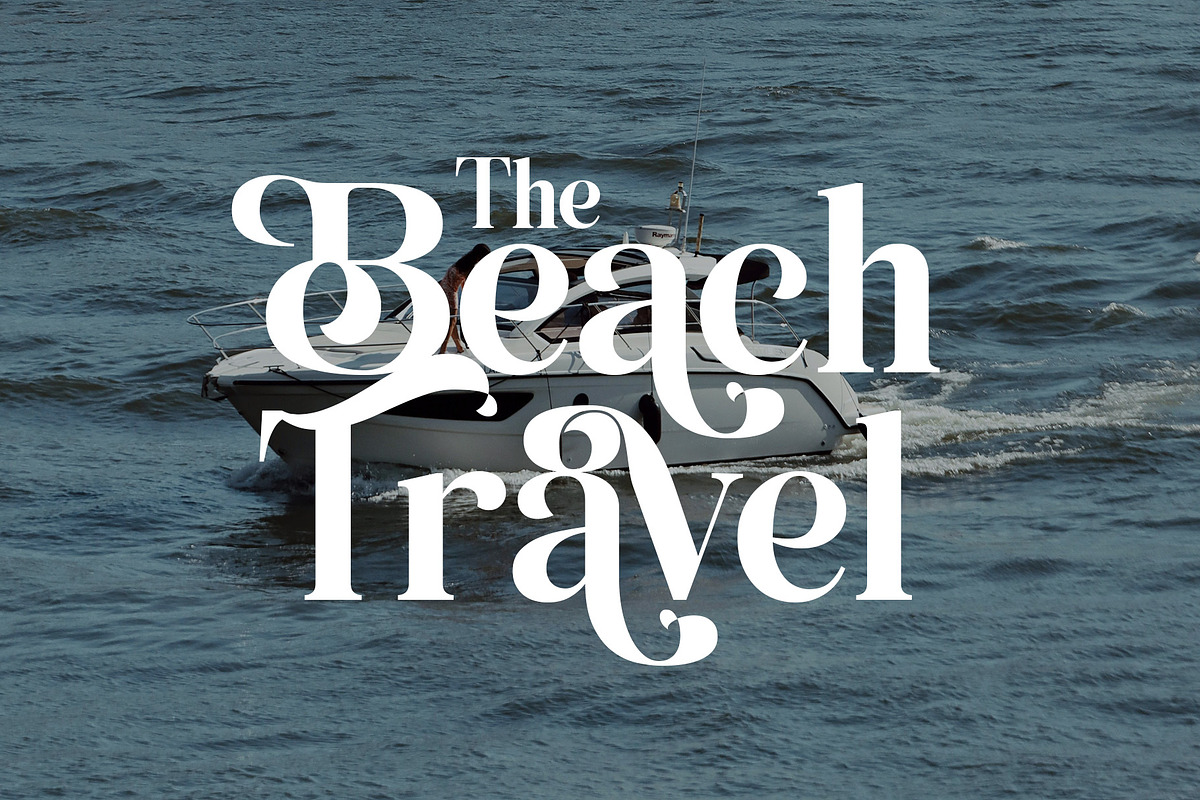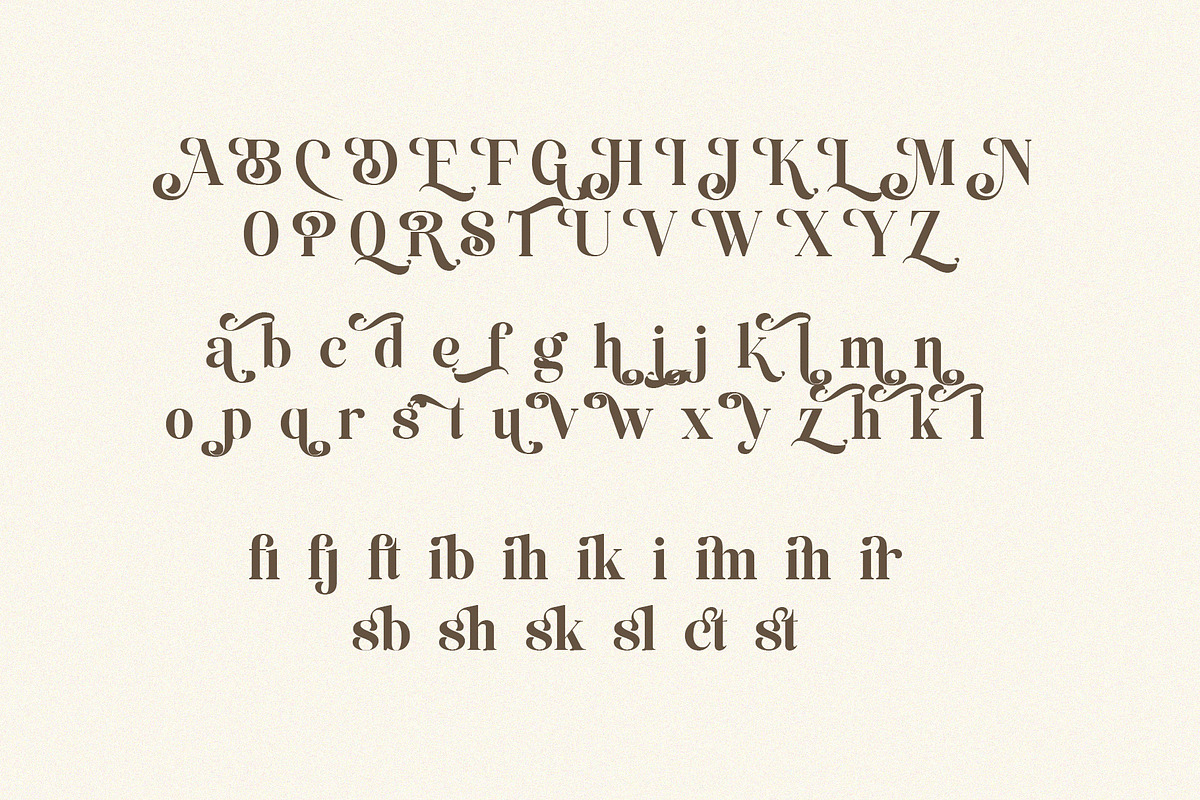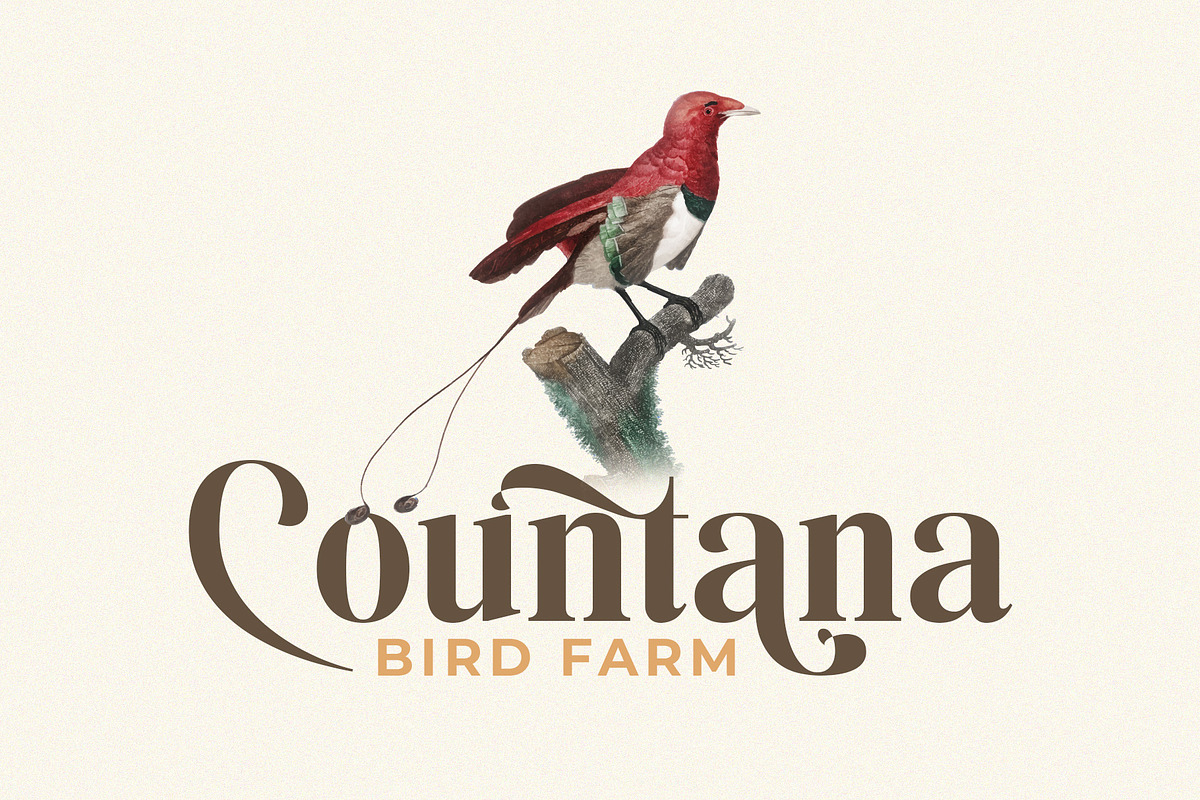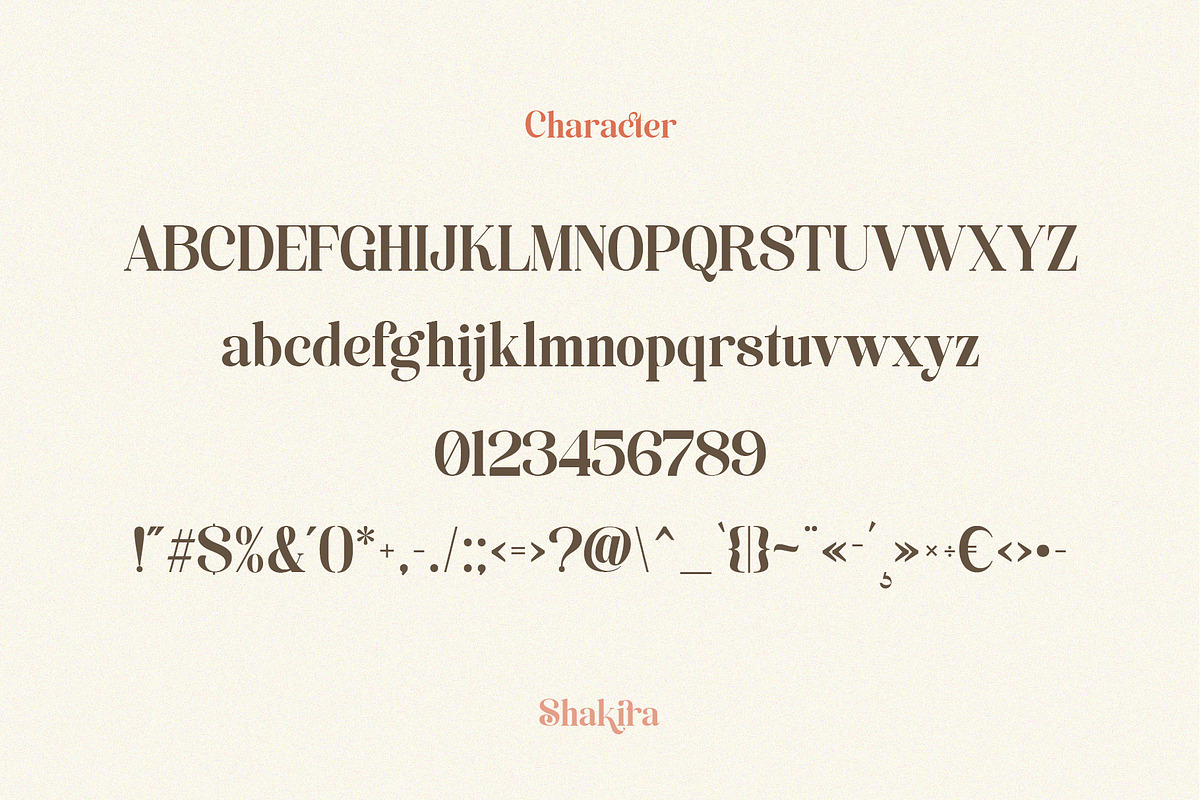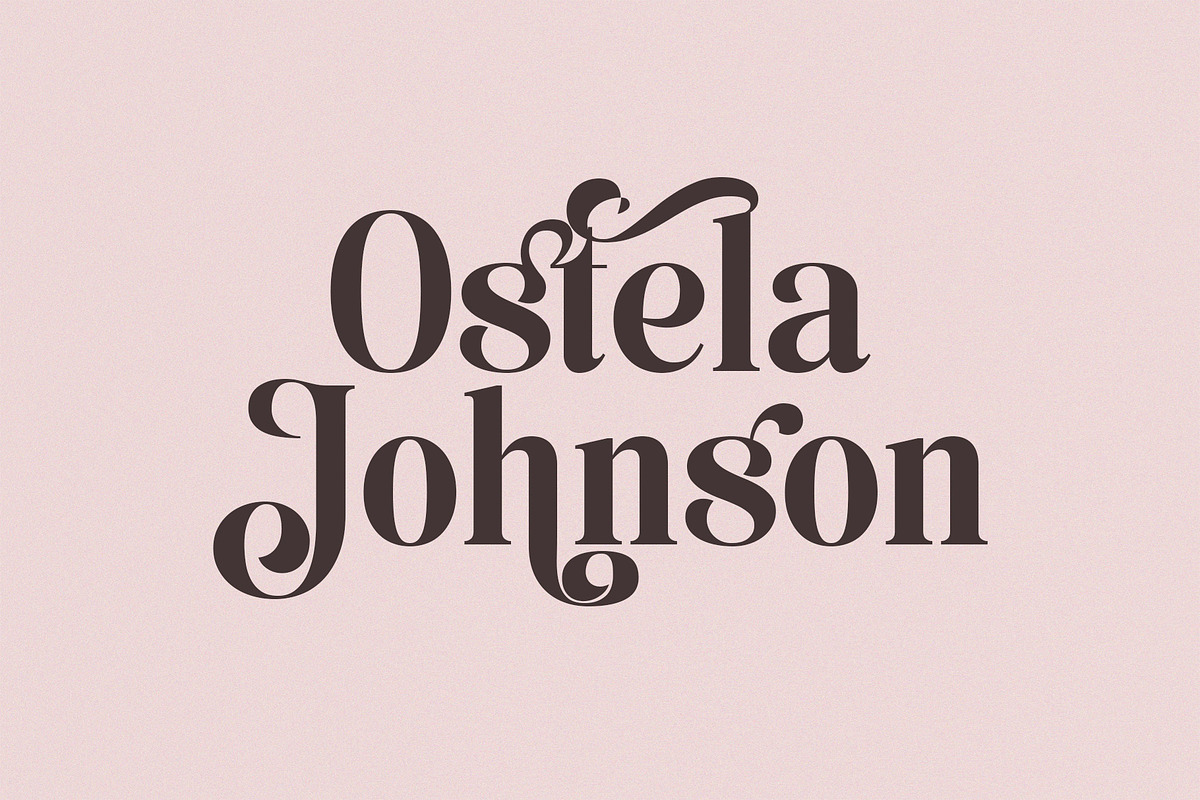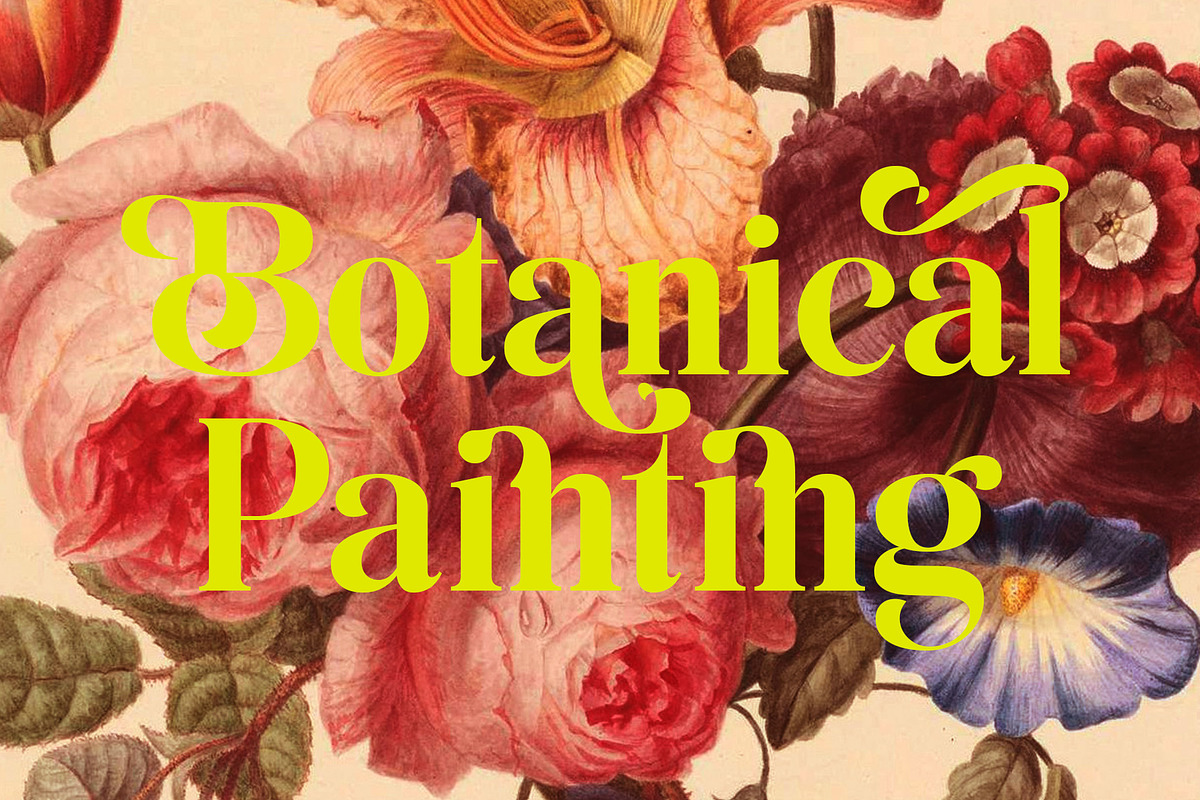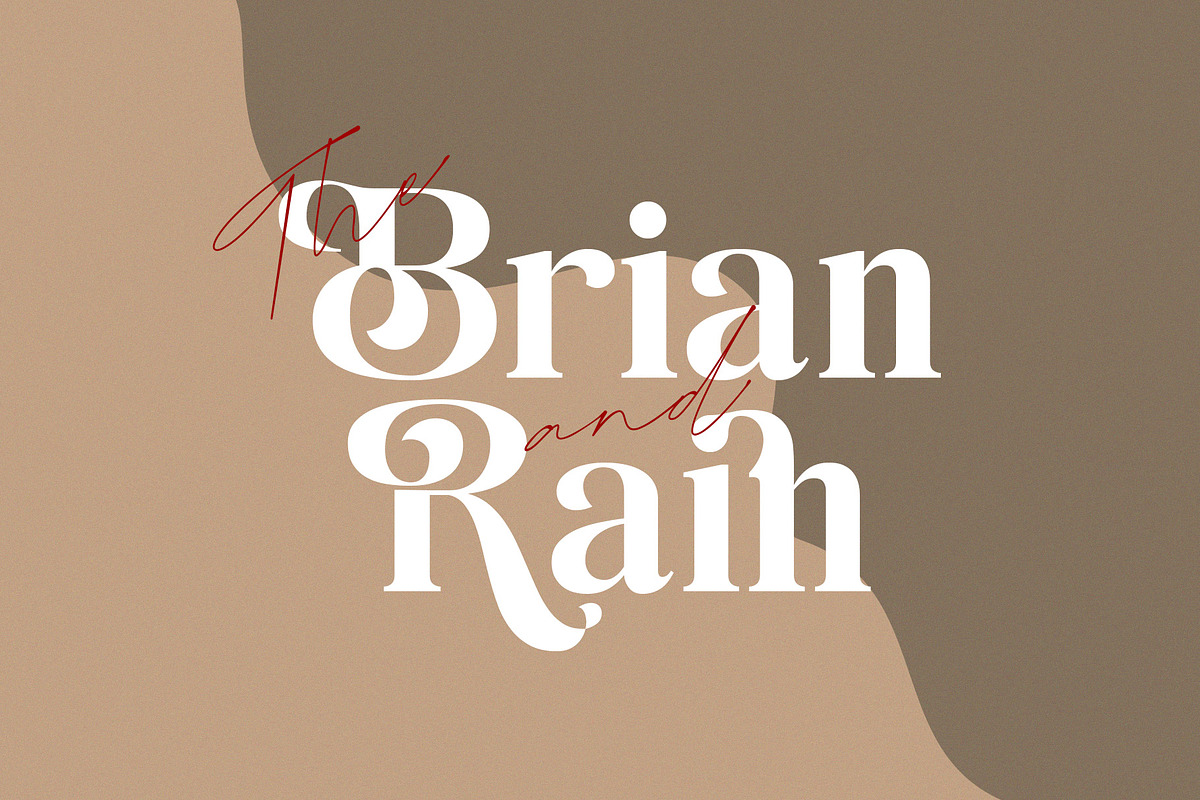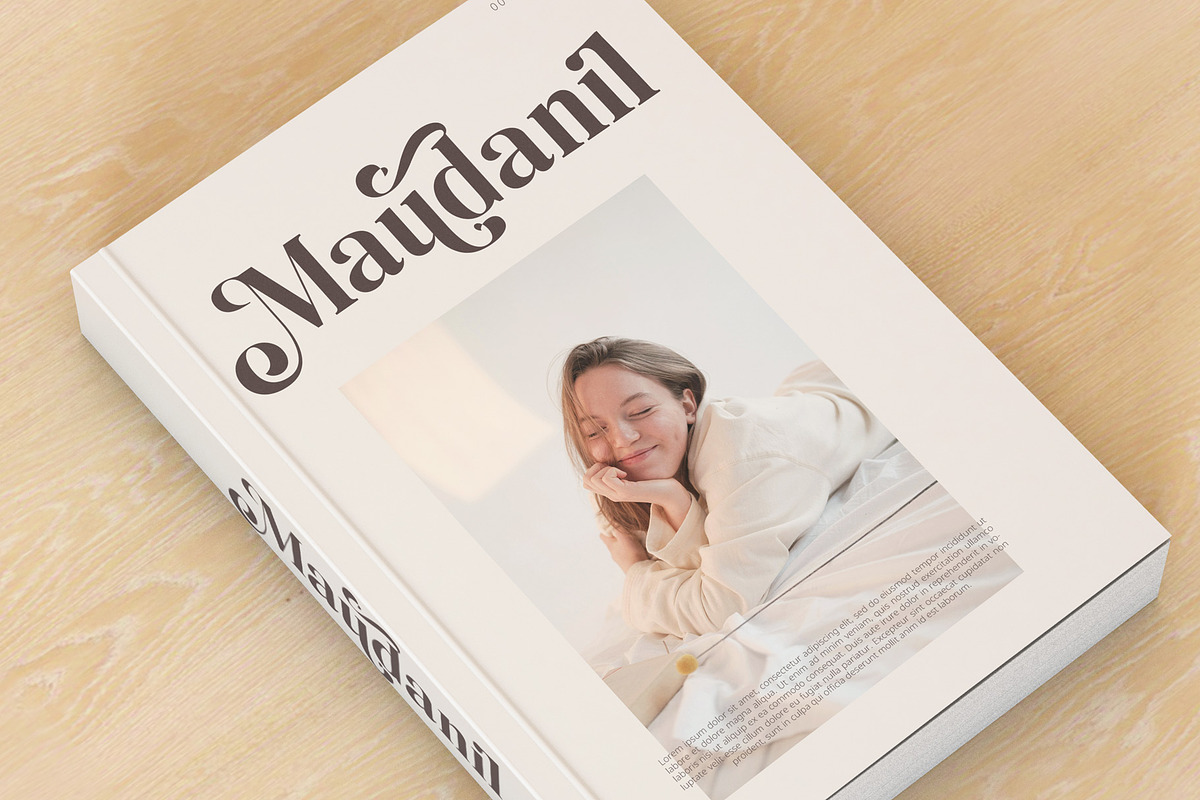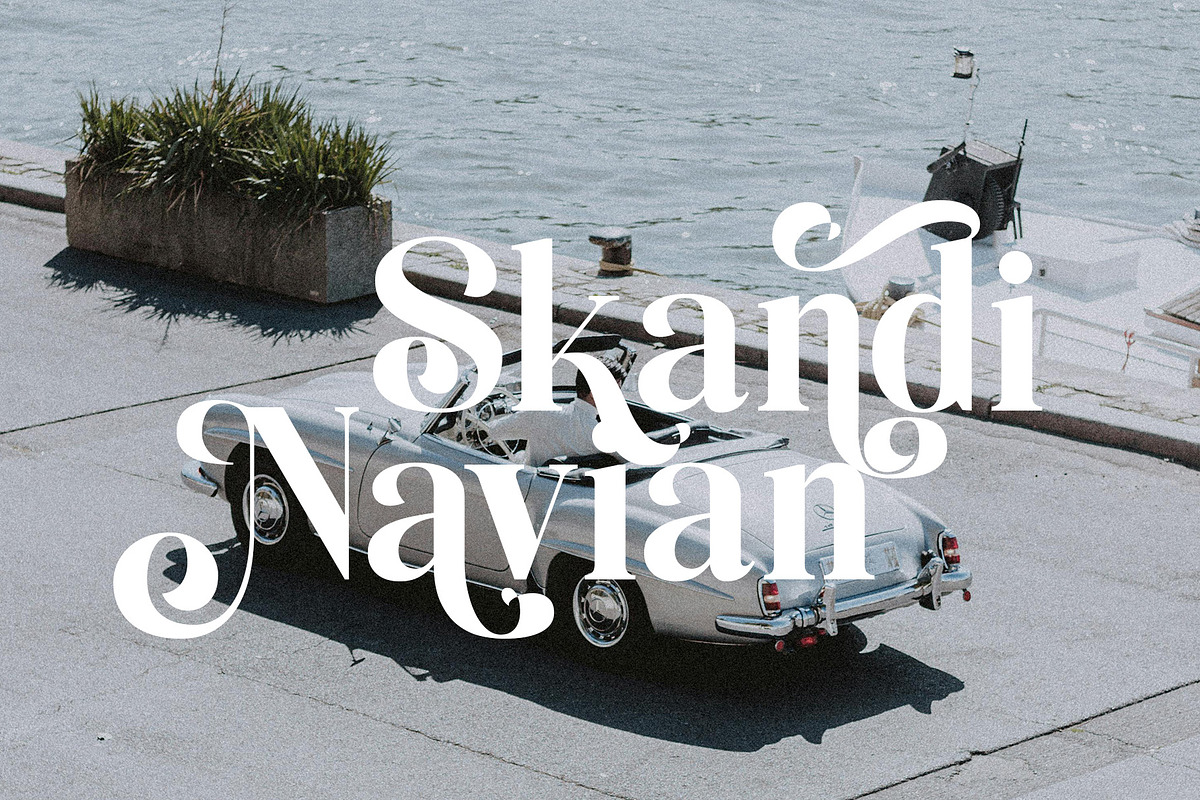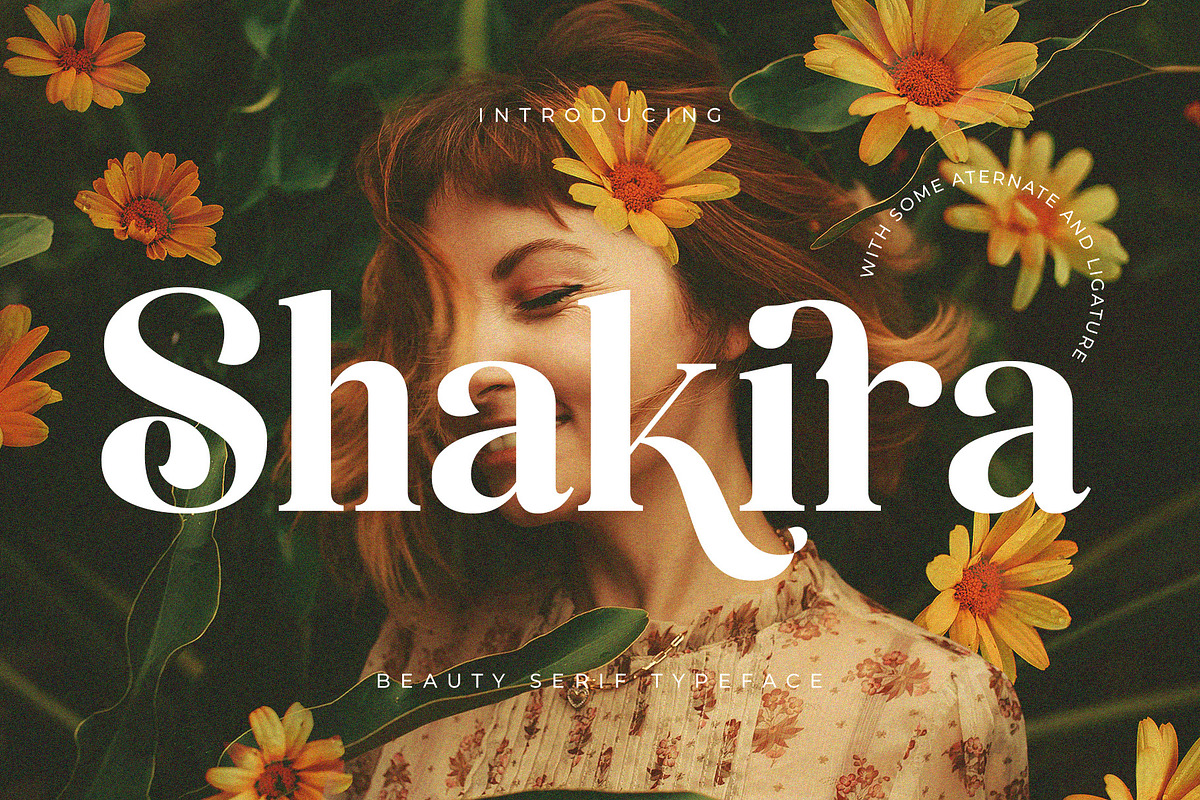
Shakira Beauty Serif
presents a beautiful new font with the name Shakira. As the name suggests, this font is made in a beautiful style using alternates and ligatures that match the style and name. Shakira is made professionally and has its own charm and elegance that may not exist in other fonts. This font will be a beautiful and elegant combination for your design projects, both print and digital. The bold shape will add a bold impression, but combined with the existing variations it will make this font unique and attractive